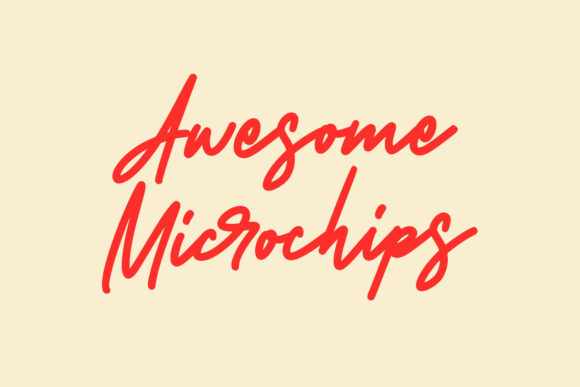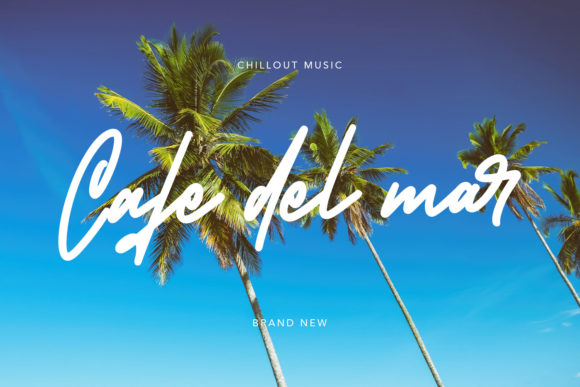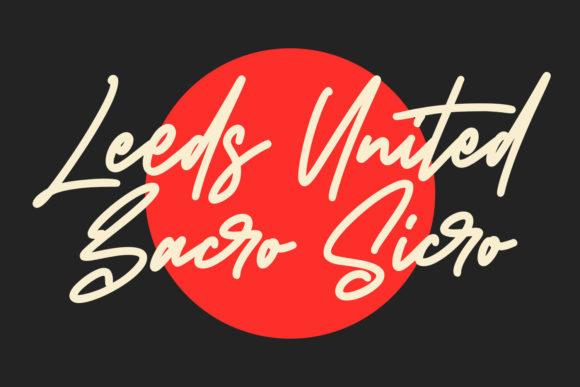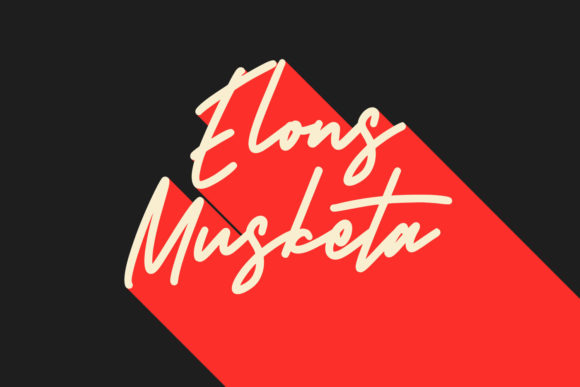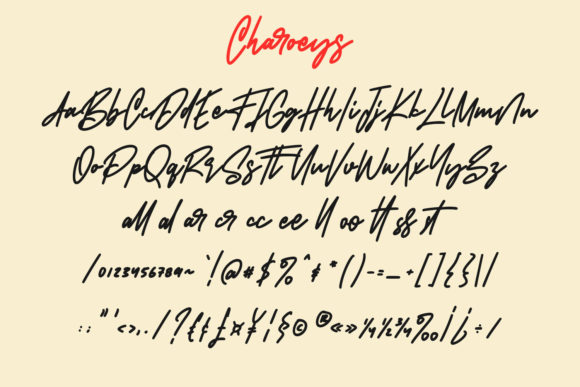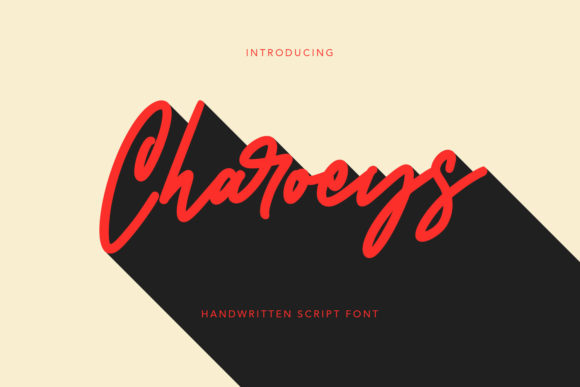
Discover the Elegance of Charoeys Font: Elevate Your Designs with a Timeless Handwritten Style
Are you on the hunt for a font that adds a touch of elegance and sophistication to your designs? Look no further than Charoeys Font, a stunning flowing handwritten font that is sure to capture your heart. With its incredibly distinct and timeless style, Charoeys is the perfect choice for designers and crafters looking to create spectacular designs that stand out from the crowd.
What Makes Charoeys Font So Special?
Charoeys Font is a masterpiece of handwritten typography, boasting an elegant touch that sets it apart from other fonts. Its flowing lines and curves create a sense of movement and fluidity, making it perfect for designs that require a touch of sophistication and glamour. Whether you’re working on a branding project, a wedding invitation, or a packaging design, Charoeys Font is sure to impress.
The Benefits of Using Charoeys Font
So why choose Charoeys Font for your next design project? Here are just a few benefits of using this stunning font:
- Elegance and Sophistication: Charoeys Font adds a touch of elegance and sophistication to any design, making it perfect for high-end brands and luxury products.
- Timeless Style: Unlike trendy fonts that quickly go out of style, Charoeys Font has a timeless quality that ensures your designs will remain stylish for years to come.
- Versatility: Charoeys Font is incredibly versatile, making it suitable for a wide range of design projects, from branding and advertising to packaging and editorial design.
- Easy to Read: Despite its elegant and flowing lines, Charoeys Font is easy to read, making it perfect for body text and longer design projects.
How to Use Charoeys Font in Your Designs
Using Charoeys Font in your designs is easy. Here are a few tips to get you started:
- Pair it with a Sans-Serif Font: For a classic look, pair Charoeys Font with a sans-serif font, such as Arial or Helvetica.
- Use it for Headings and Titles: Charoeys Font is perfect for headings and titles, where its elegant lines and curves can really shine.
- Experiment with Colors and Textures: Charoeys Font looks stunning in a variety of colors and textures, so don’t be afraid to experiment and find the perfect combination for your design.
Who is Charoeys Font Suitable For?
Charoeys Font is perfect for a wide range of designers and crafters, including:
- Graphic Designers: Charoeys Font is a must-have for any graphic designer looking to add a touch of elegance and sophistication to their designs.
- Branding and Advertising Agencies: Charoeys Font is perfect for branding and advertising agencies looking to create high-end designs that impress clients and customers.
- Wedding and Event Planners: Charoeys Font is a popular choice for wedding and event planners looking to create beautiful and elegant invitations and stationery.
- Crafters and Small Business Owners: Charoeys Font is also perfect for crafters and small business owners looking to add a touch of elegance and sophistication to their packaging and marketing materials.
In conclusion, Charoeys Font is a stunning flowing handwritten font that is sure to elevate your designs to the next level. With its elegant lines and curves, timeless style, and versatility, Charoeys Font is the perfect choice for designers and crafters looking to create spectacular designs. So why wait? Fall in love with Charoeys Font today and discover the power of elegant typography for yourself.